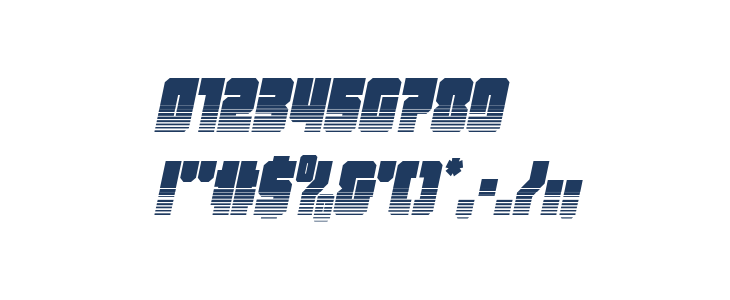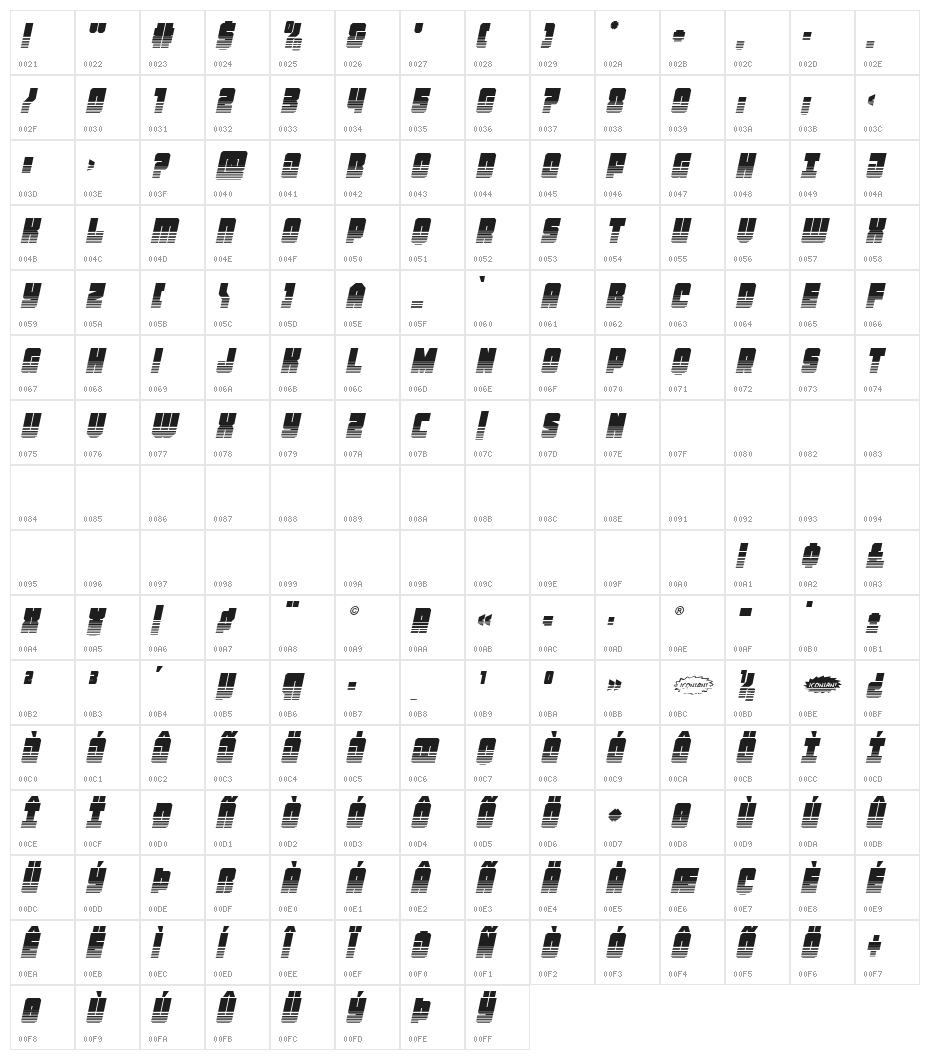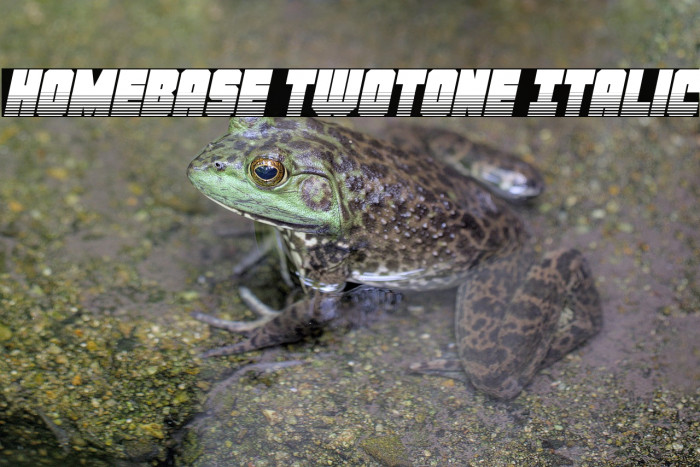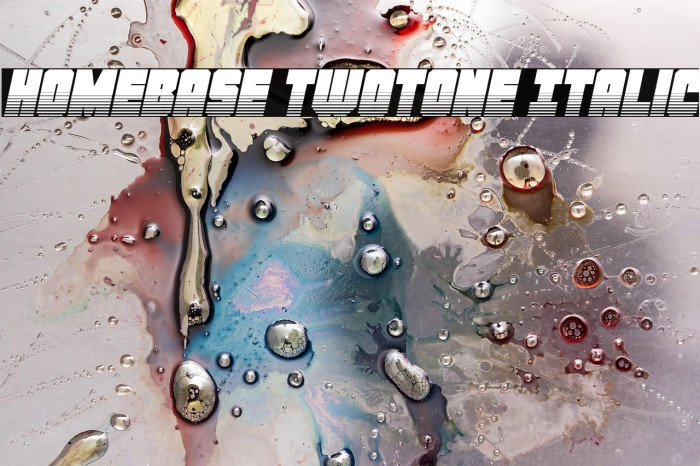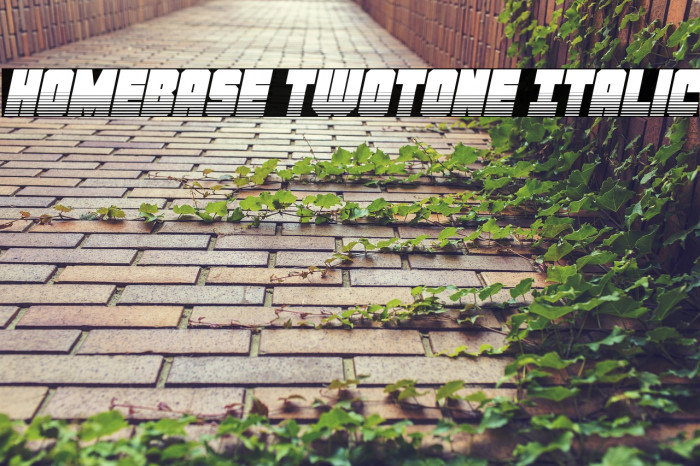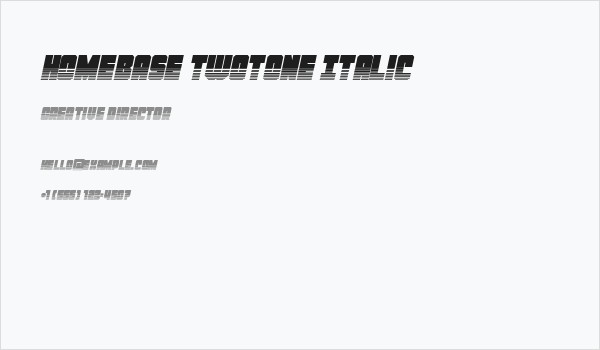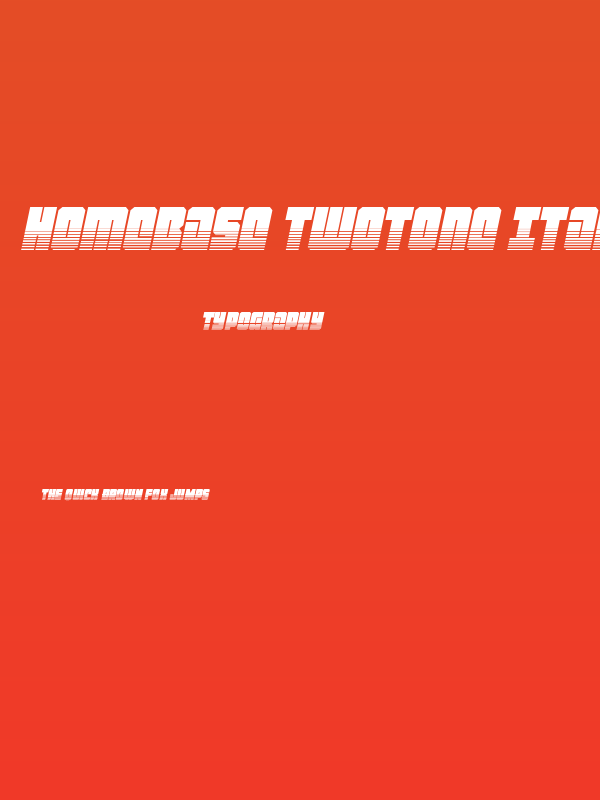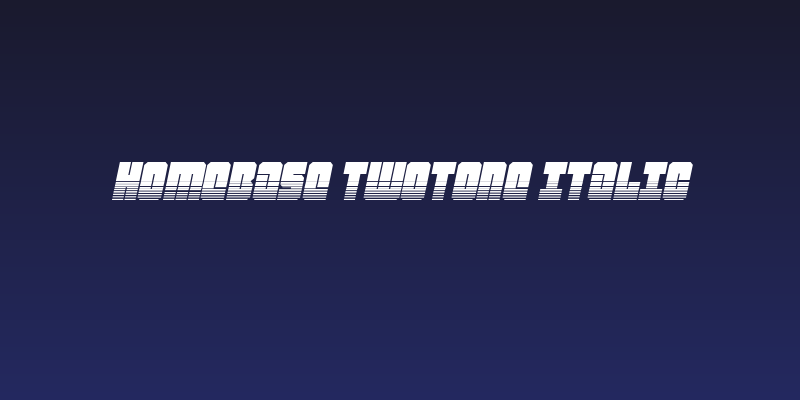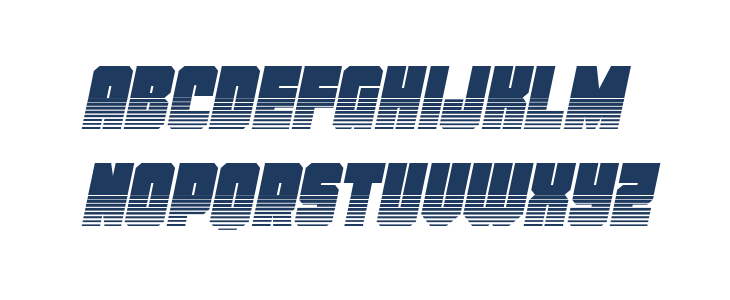
Homebase Twotone Italic Font
Homebase Twotone Italic Description
This font features a bold, italicized style with a distinctive two-tone effect. The characters are designed with horizontal lines that create a sense of movement and dynamism. The uppercase and lowercase letters maintain a consistent width, giving the font a uniform appearance. The numbers and special characters are crafted with the same attention to detail, ensuring a cohesive look across all elements. The font's unique design makes it stand out, ideal for projects that require a modern and edgy aesthetic.
Proposed ProjectsIdeal for sports branding, dynamic posters, modern advertisements, and edgy graphic designs.